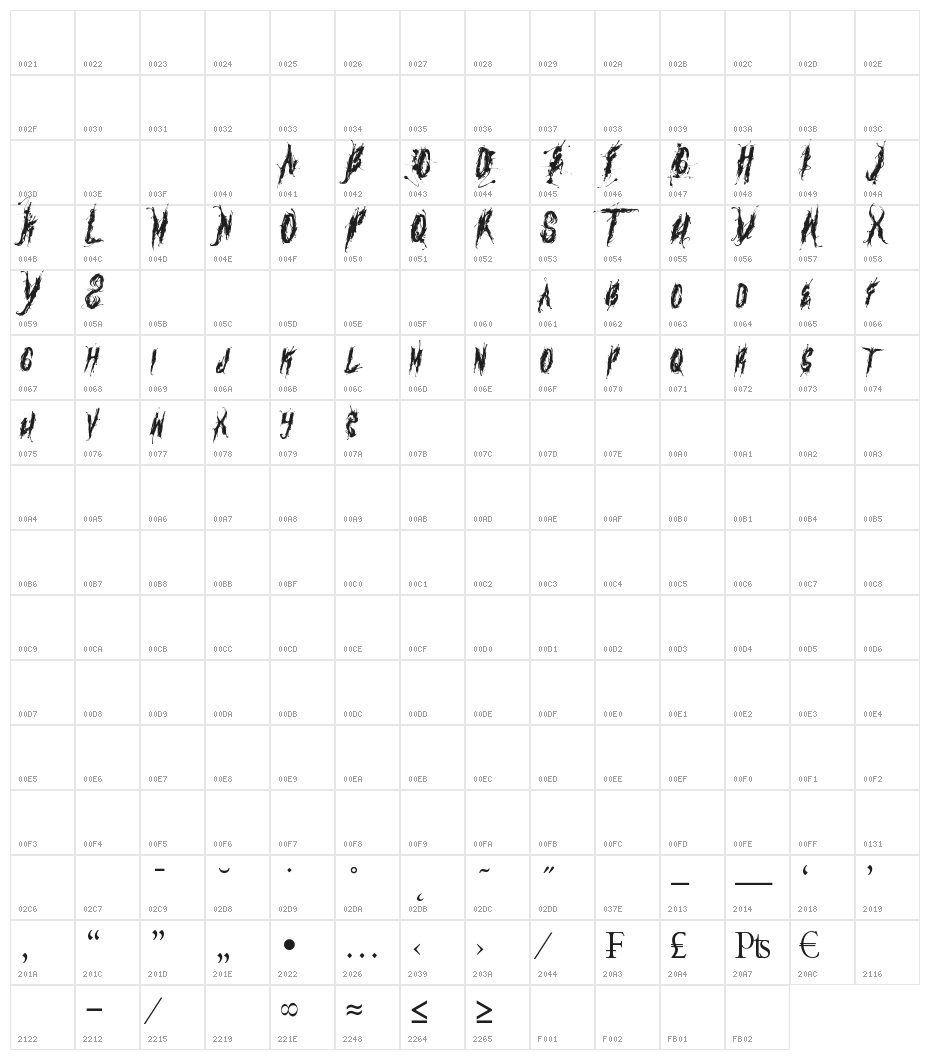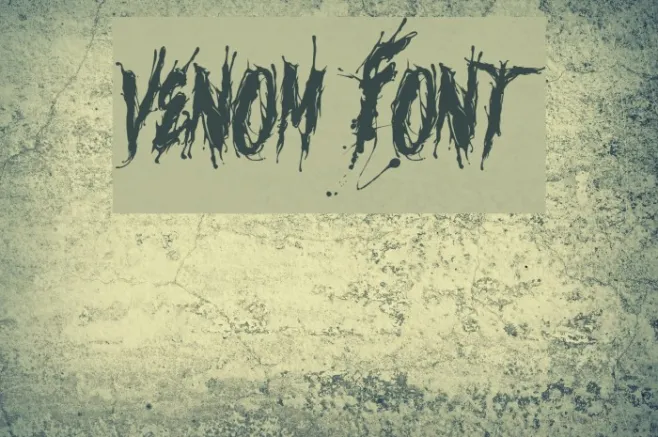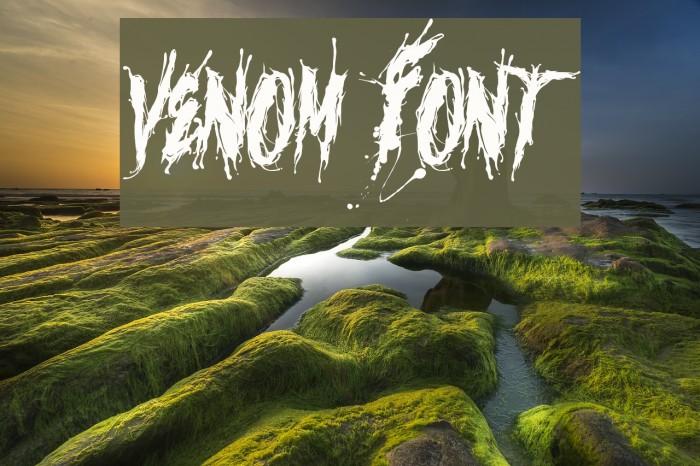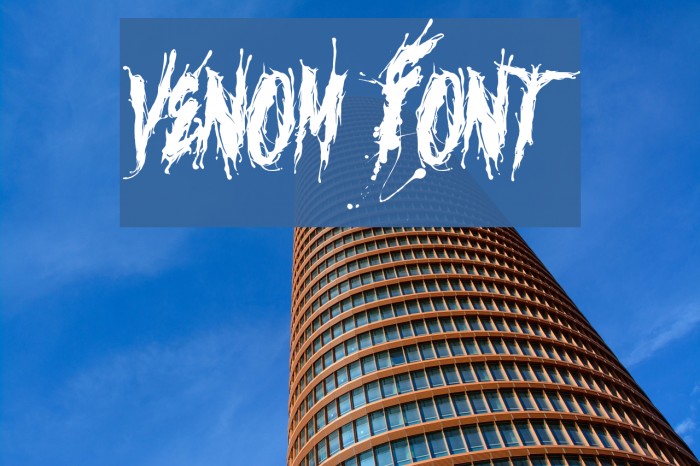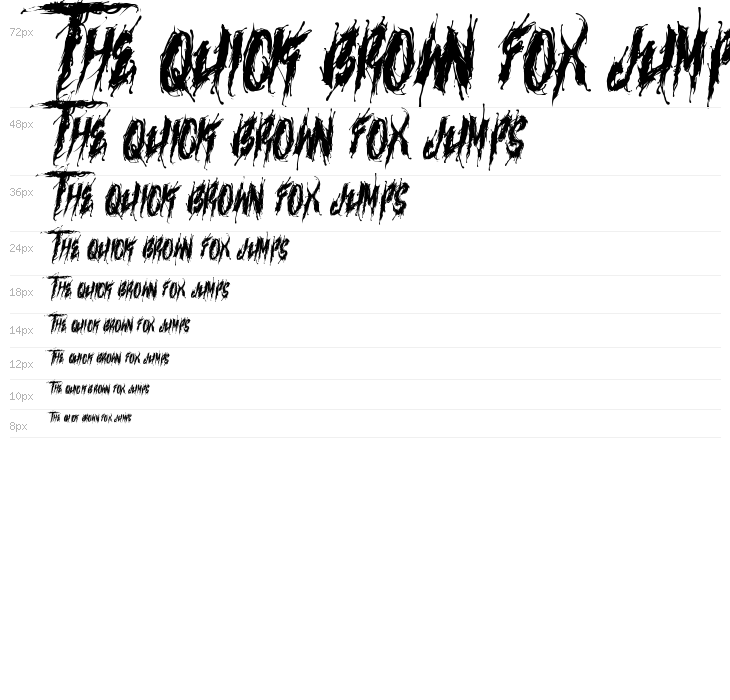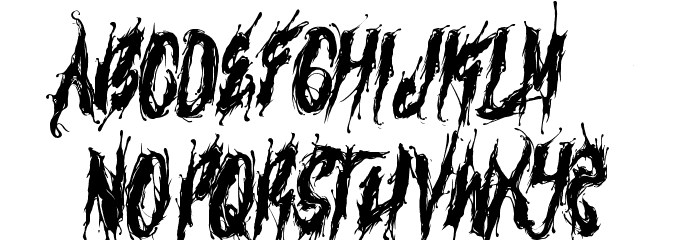
venom Font
venom Description
This font exudes a chaotic and aggressive style, reminiscent of tangled vines or dripping ink. Each character is uniquely distorted, with jagged edges and irregular shapes that create a sense of movement and intensity. The letters appear to be in constant motion, as if they are alive and writhing. This design choice gives the font a distinctly horror or thriller vibe, making it ideal for projects that require a dramatic and unsettling aesthetic. The overall appearance is both captivating and intimidating, drawing the viewer's attention immediately.
| Proposed Projects | Ideal for horror movie posters, Halloween event flyers, or edgy album covers. |